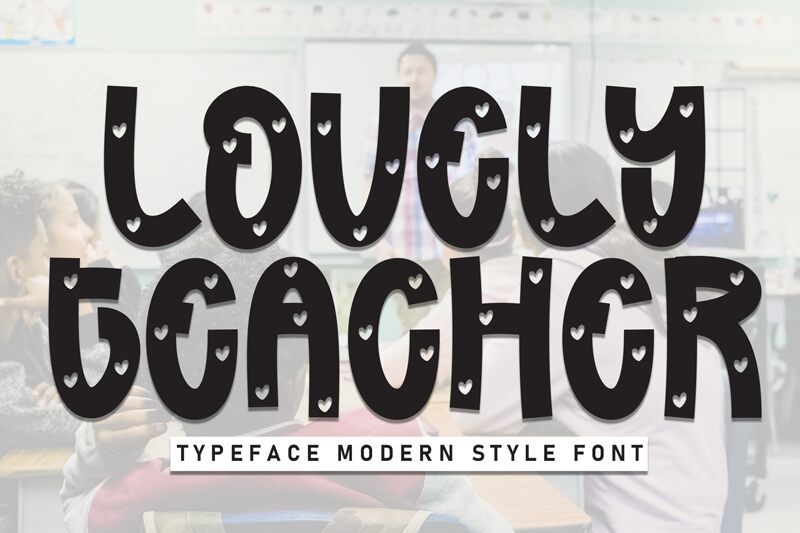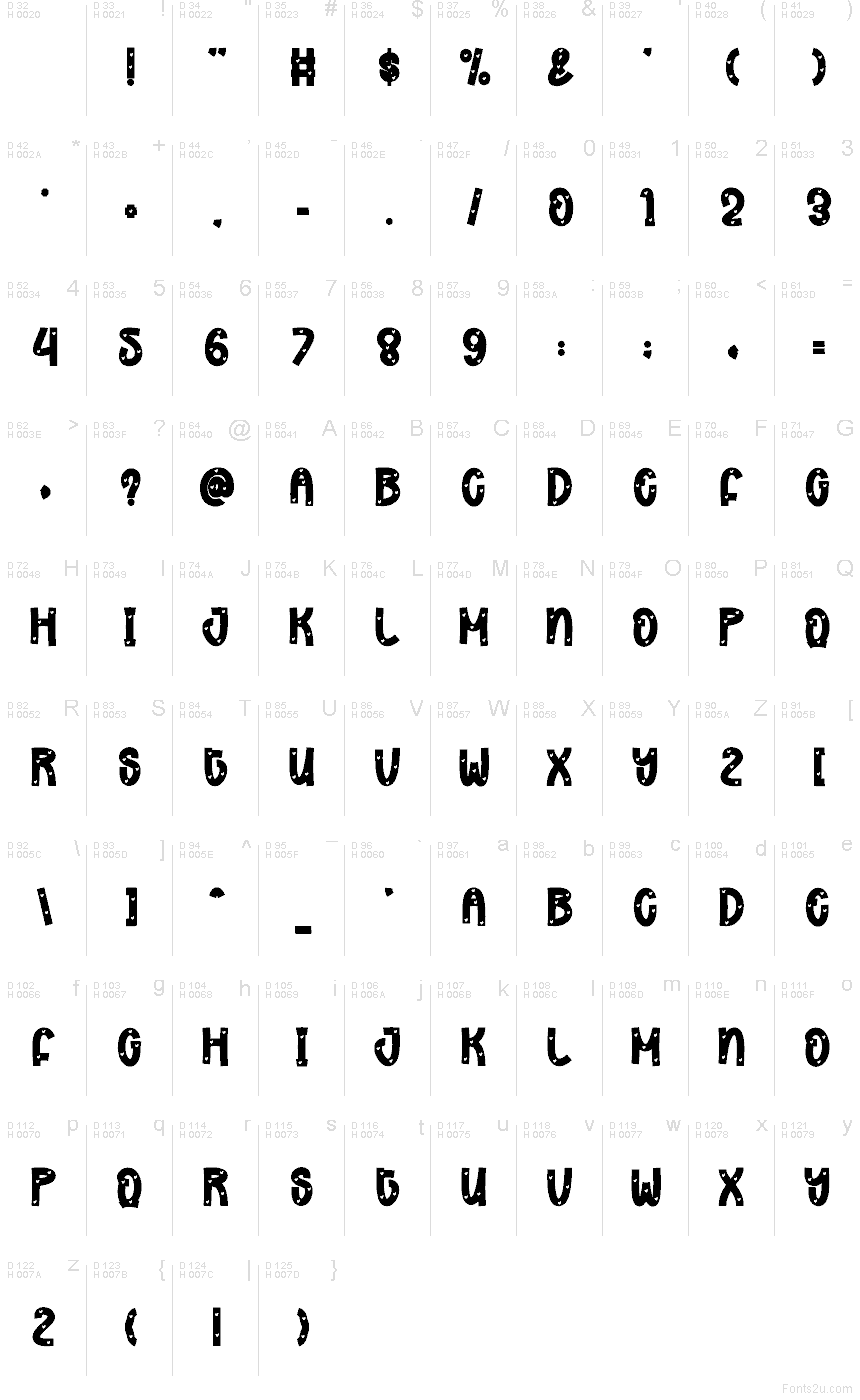
Lovely Teacher font by Andi Moz is a free Valentine holiday decorative typeface with chunky, hand-drawn letters filled with tiny heart cutouts. The bold, inky strokes feel like they’ve been doodled on a classroom whiteboard, giving every word a warm, teacher-approved sweetness. Its playful rhythm makes messages feel friendly and approachable, without losing legibility when used large.
Using Lovely Teacher font instantly adds a cozy, classroom-Valentine vibe to cards, bulletin boards, worksheets, gift tags, party invitations, and social media graphics. This free font shines when you set it big and bold for headlines, then pair it with a clean rounded sans serif for body text. It’s a natural fit for school events, teacher appreciation projects, and any design where you want hearts, hugs, and a little extra charm.